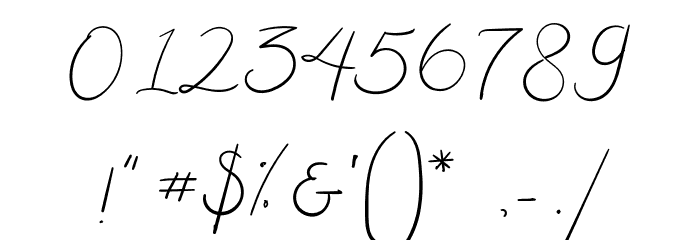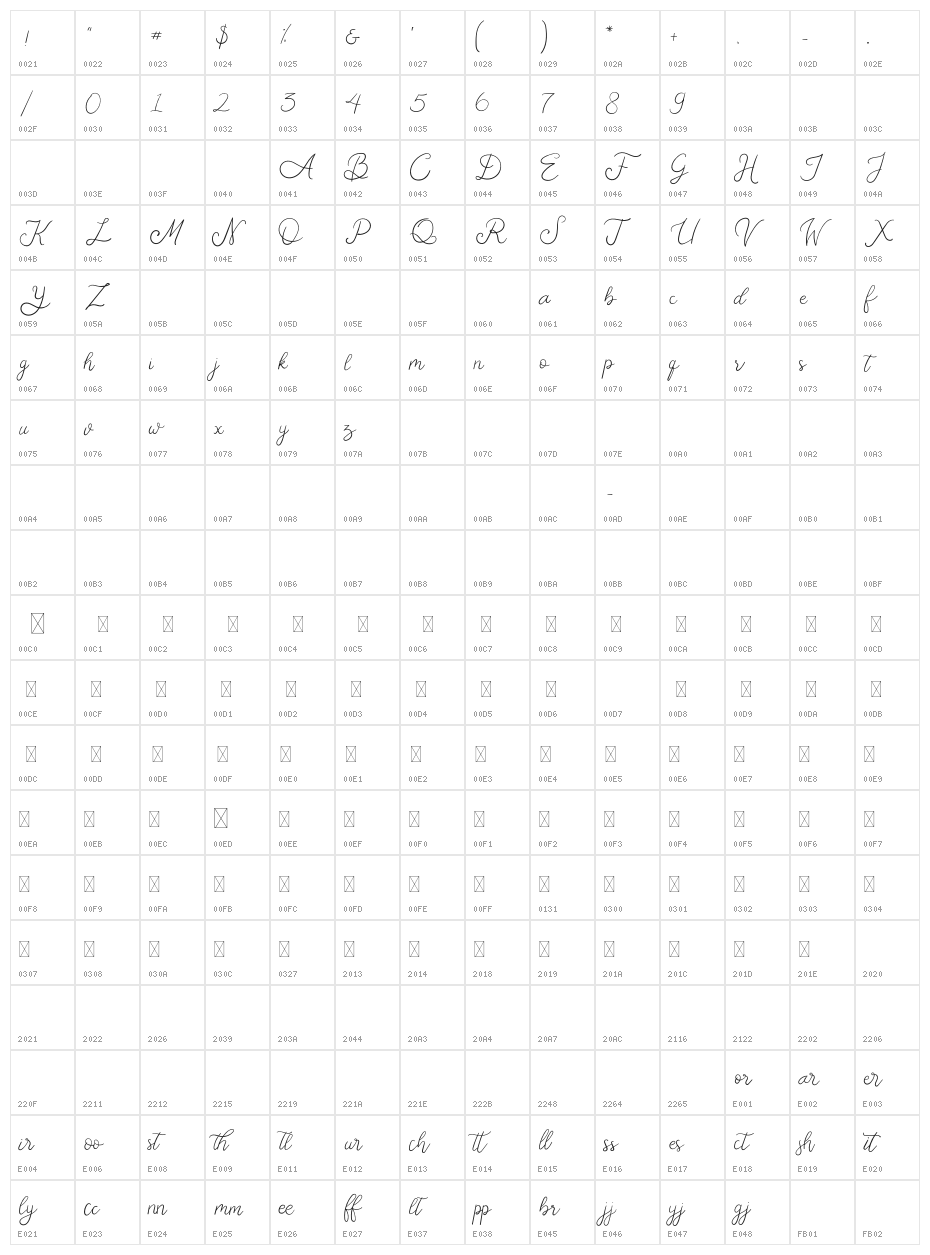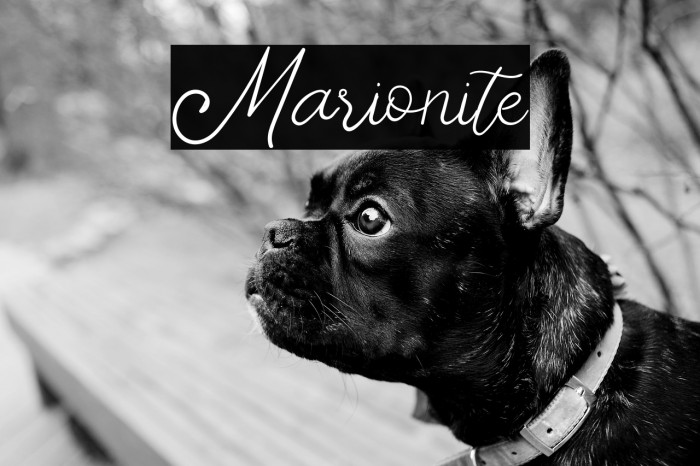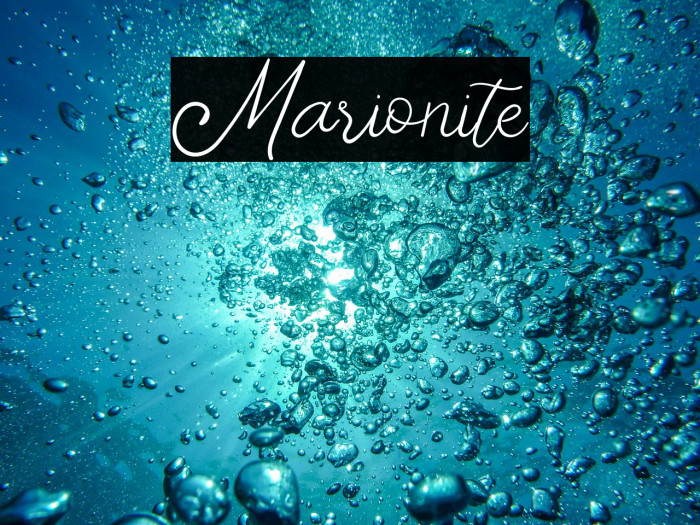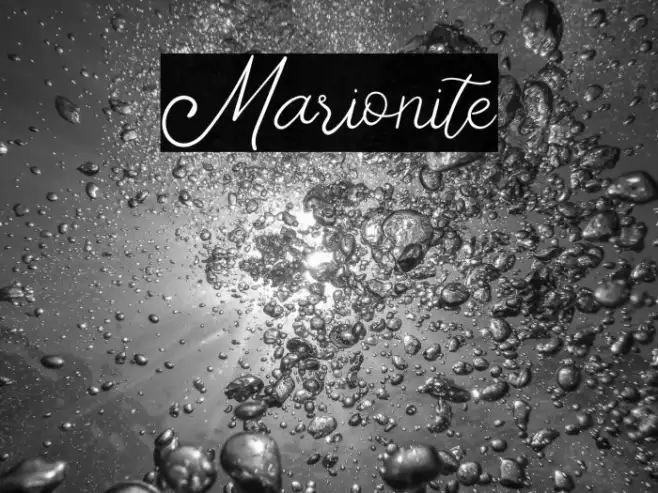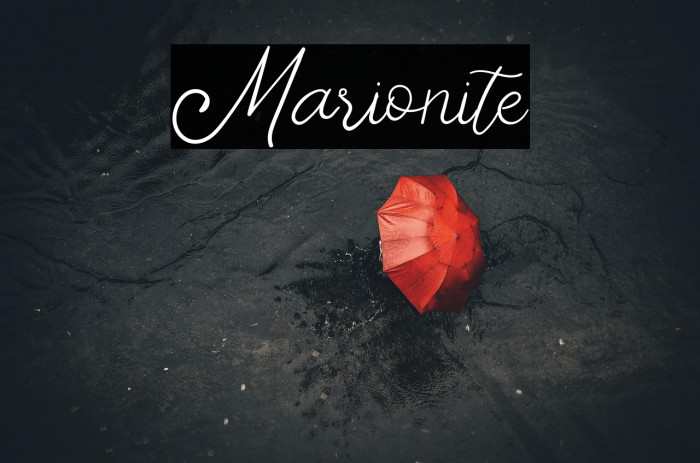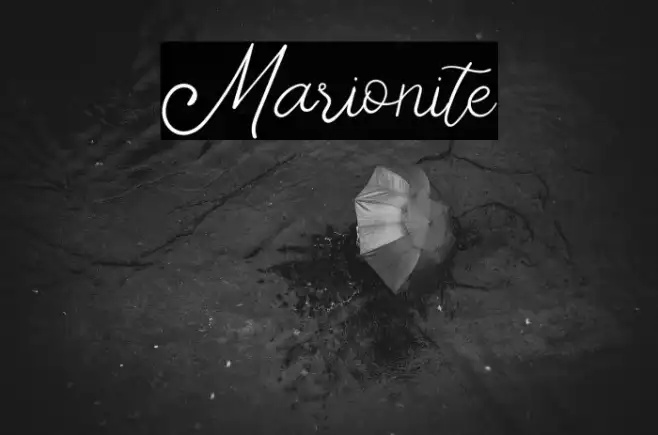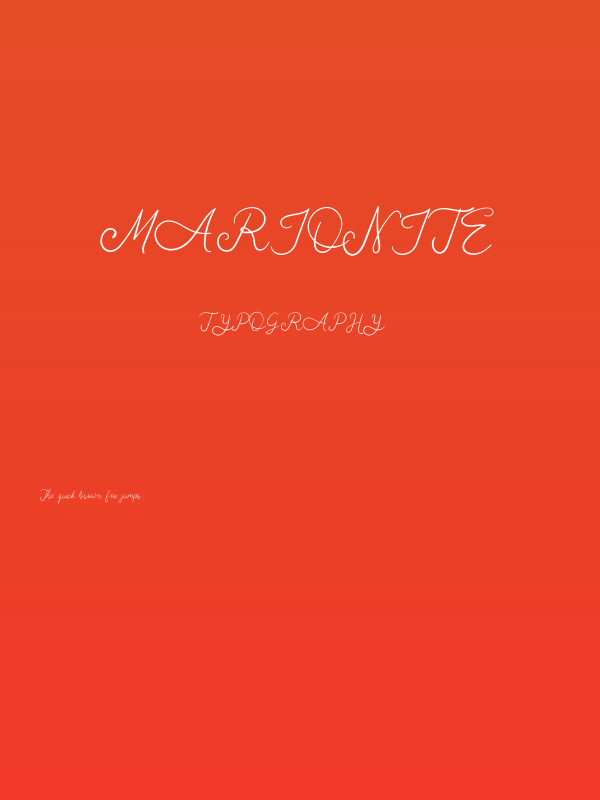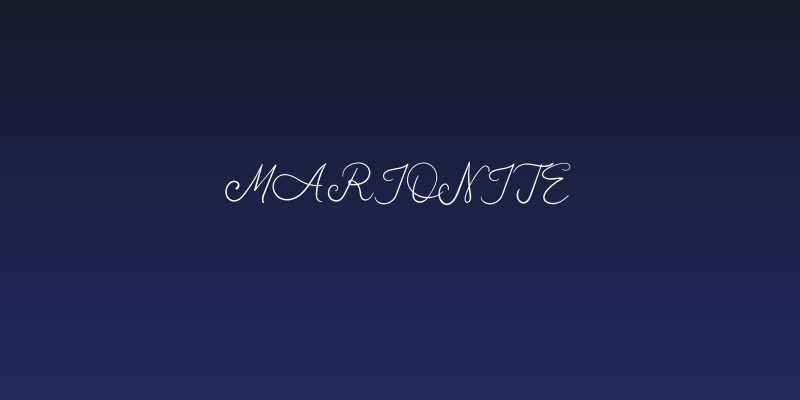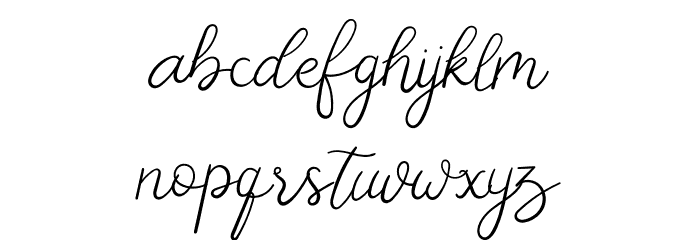
Marionite Font
Marionite Description
This elegant script font features flowing, interconnected letters that mimic the fluidity of cursive handwriting. The uppercase letters are ornate, with sweeping loops and flourishes that add a touch of sophistication. The lowercase letters maintain a consistent style, with gentle curves and smooth connections between characters. Numbers and special characters are designed to complement the overall aesthetic, ensuring a cohesive look across all text elements. The font's delicate lines and graceful forms make it ideal for projects that require a personal, handwritten touch.